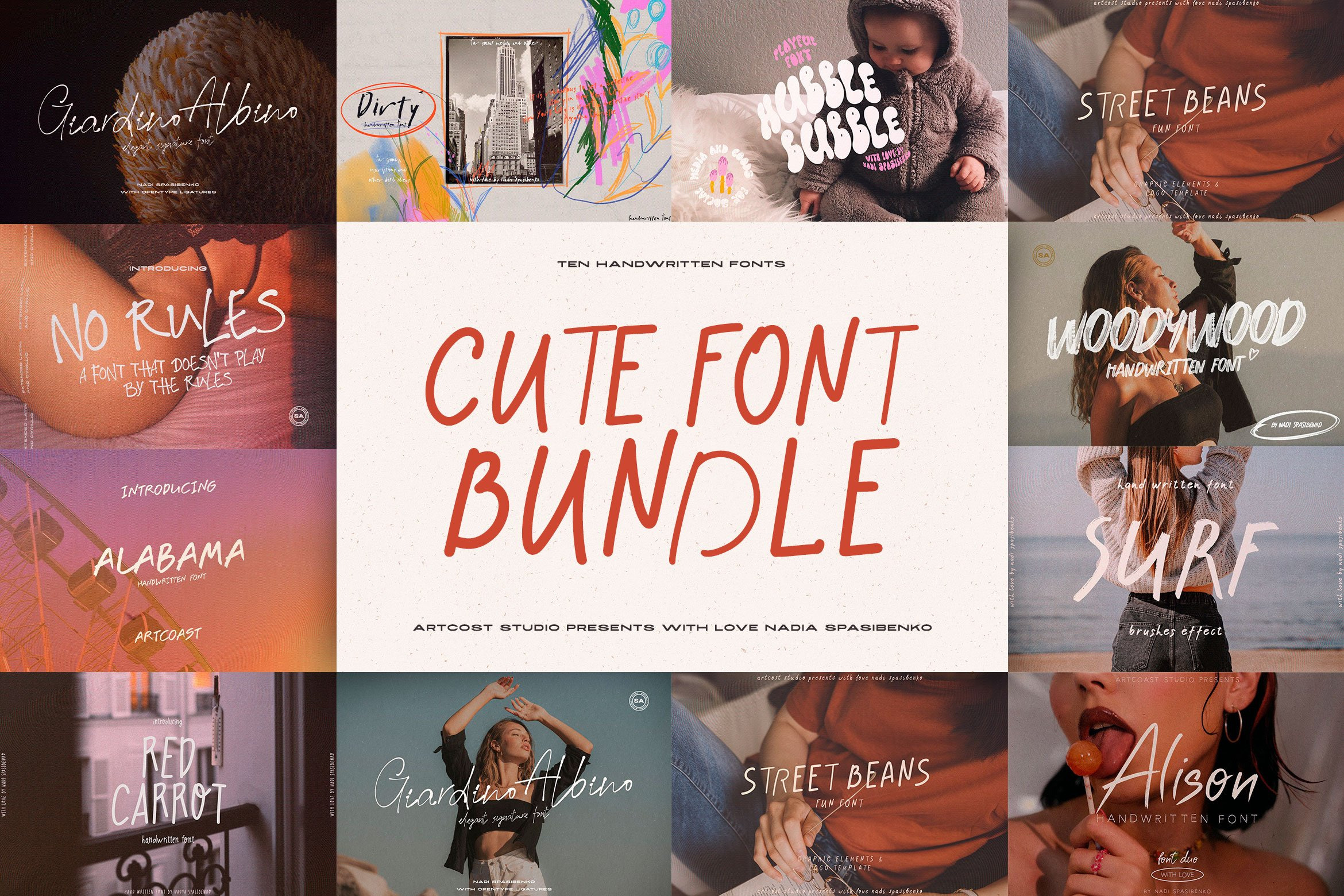
Cute Font Bundle | Handwritten Fonts
NO RULES || Cursive Handwritten Font
Brash, crazy handwritten font that doesn't play by the rules. Written easily and naturally with a glass of good whiskey. Write beautiful quotes with this font, get the truth with a strong word, and this font will help you.
Giardino Albino - an elegant handwritten font, ideal for beautiful signatures.
Giardino Albino is perfect for branding projects, logo, wedding designs, social media posts, advertisements, product packaging, product designs, label, photography, watermark, invitation, stationery and any projects that need handwriting signatures.
Alabama Handwritten Font
Alabama Handwritten Font for social media, packing, branding and other purposes. A bold and sweeping typeface to grab attention. You can create products and services using Alabama Font. Alabama font is great for social media, blogs, packaging, apparel and more
Hubble Bubble Font
New Playful and Fun Hubble Bubble Font for social media, quotes, clothing and many other projects. You can use the font in retro projects6 to create a hippie and carefree atmosphere.
Dirty Handwritten Font
Dirty Handwritten Font for social media, packing, goods and quotes
Alison Handwritten Font Duo
Incredible duo handwritten font for lettering and quotes, as well as for packaging and social media. Inspired by modern retro, looks and sounds mixed. We go retro but stay trendy.
Woody Wood Font
New Unique Bold Font with Pen and Ink Effect.
The font has a large size, consider this fact. You get a bitmap font, in order to change the color of the font, you can overlay a new layer with a clipping mask or rasterize and change the color.
Beautiful Font created for posters, packaging, postcards, social media, inscriptions and quotes
Ocean Surf Hand Written Font
Handwritten Font with scuffed effect, as if written with a brush and ink
Red Carrot PlayFul Fon
Introducing the New Handwritten Font Red Carrot
Street Beans || Fun Font & Extras
Lovely playful font with additional graphics. The set includes a font, abstract shapes, various elements and compositions.